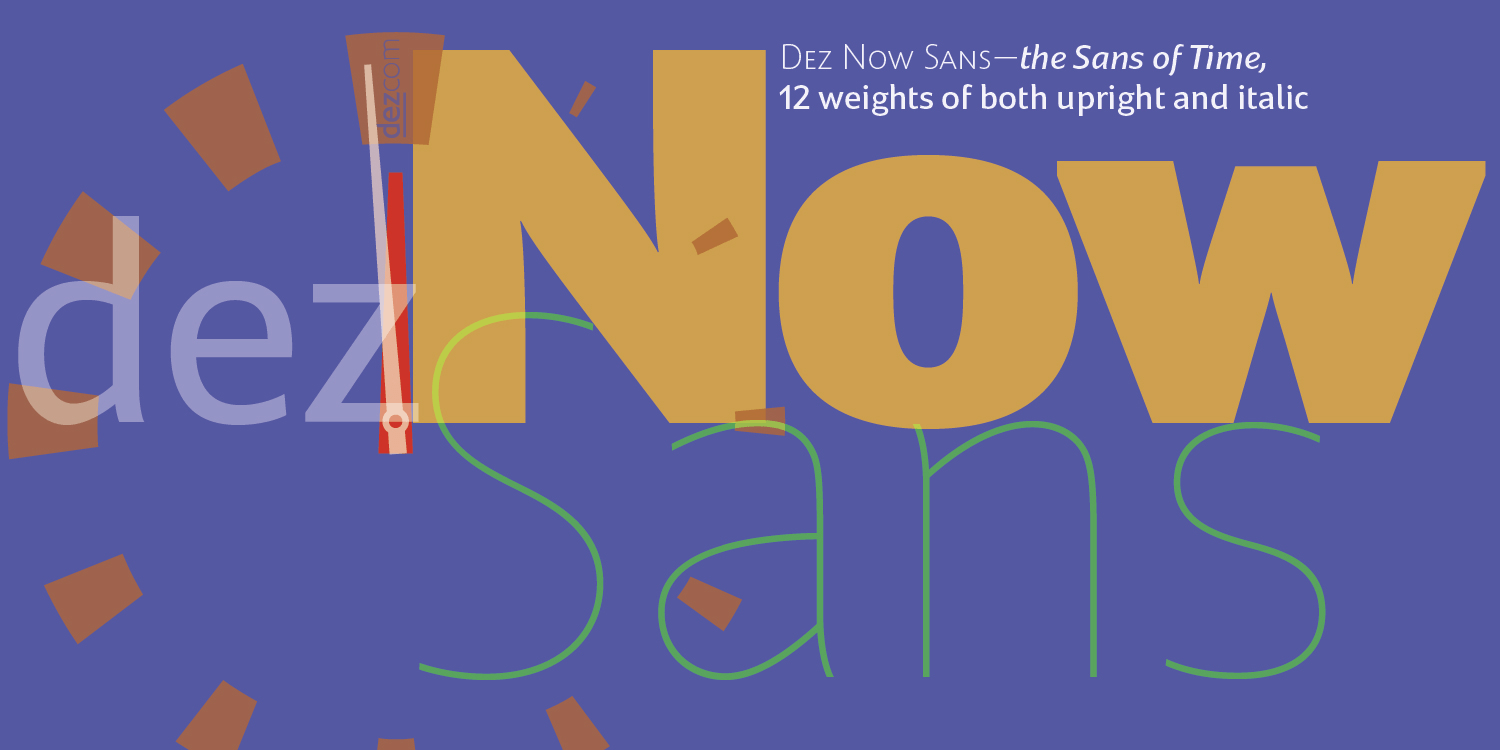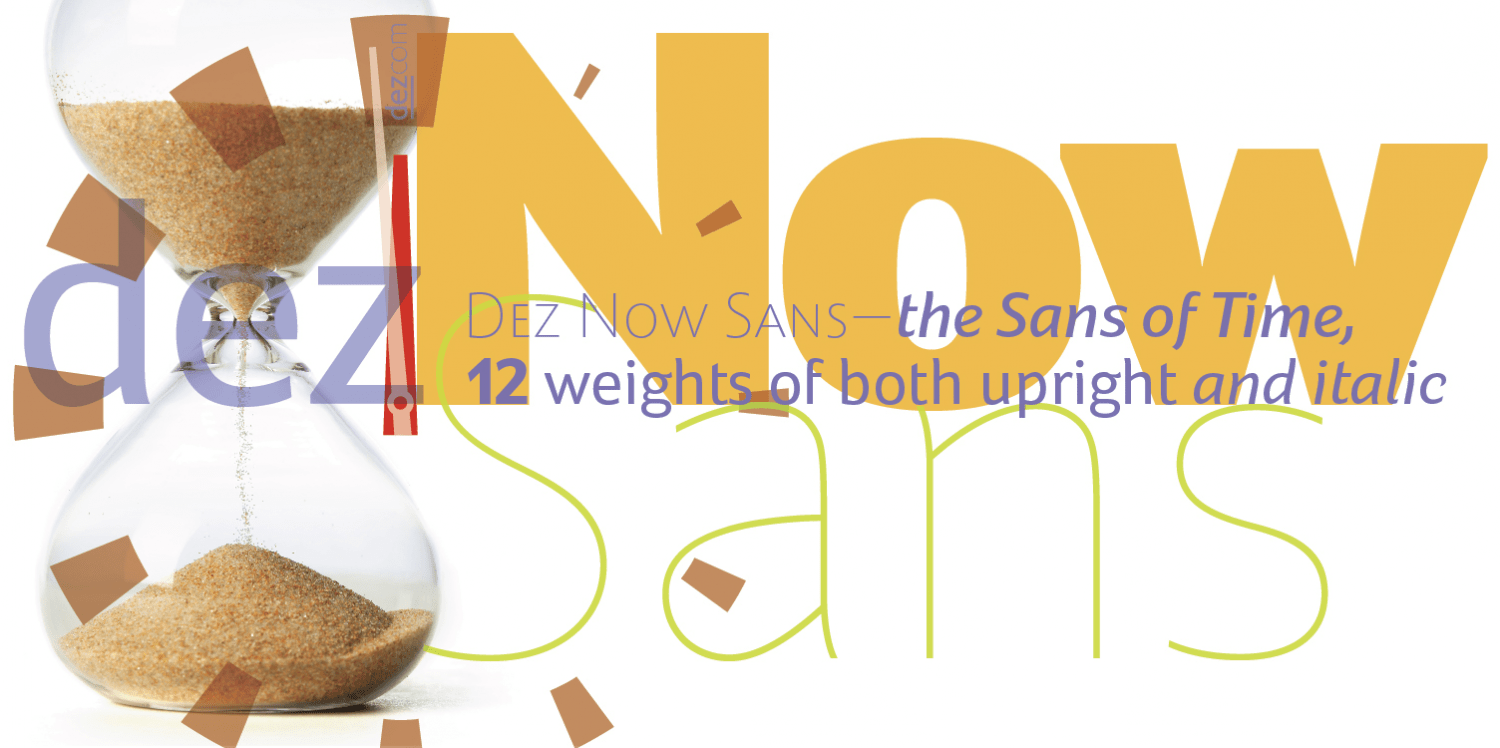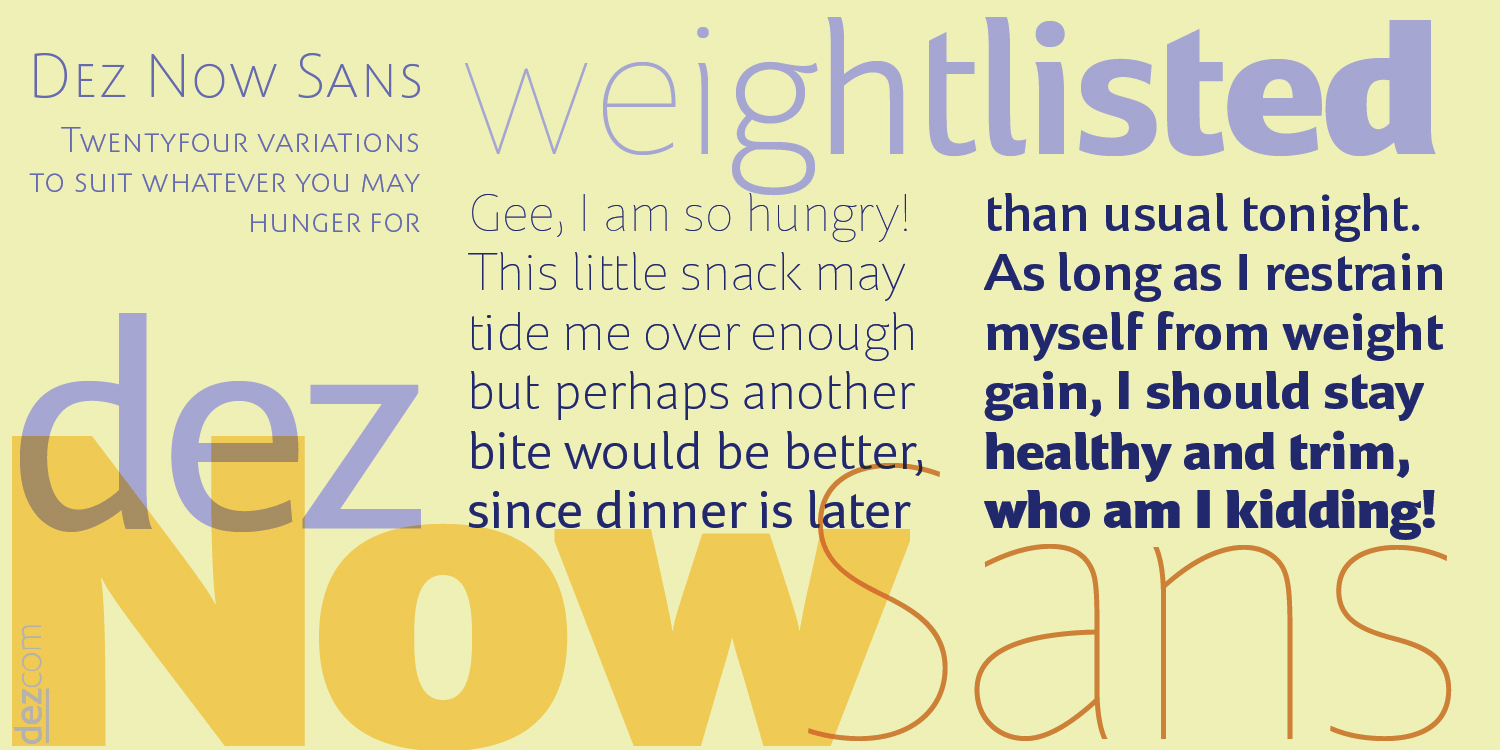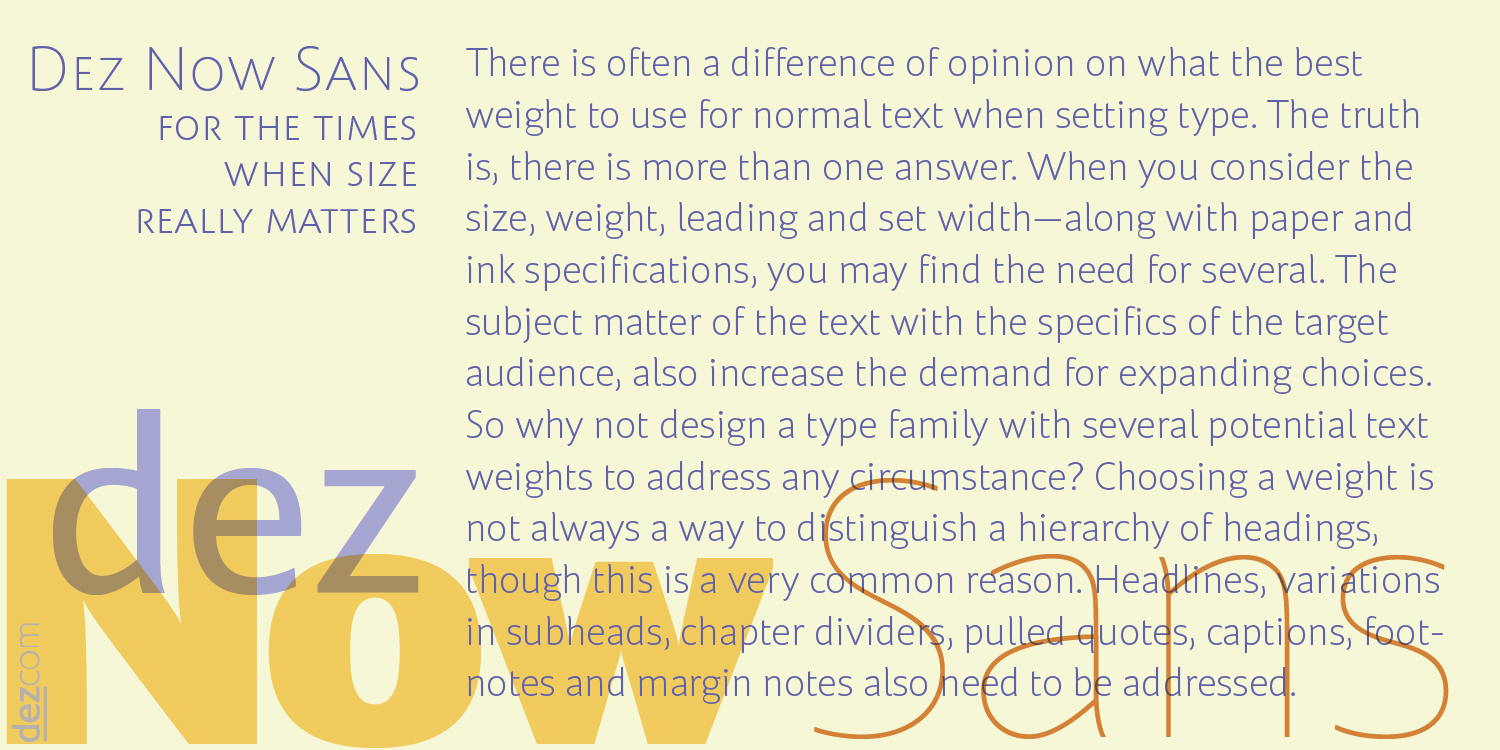
Dez Now Sans
Font Family by Dezcom
Dez Now Sans is a humanistic typeface family that was begun in 2005 by Chris Lozos of Dezcom. Since then, it has been nurtured, revised, and expanded to include 12 weights in both upright roman and true italics totaling 24 variations. This allows the user to choose the weights which best work for type-size, output device, and reproduction process.
There is often a difference of opinion on what the best weight to use for normal text when setting type. The truth is, there is more than one answer. When you consider the size, weight, leading and set width?along with paper and ink specifications, you may find the need for several. The subject matter of the text with the specifics of the target audience, also increase the demand for expanding choices. Dez Now Sans was designed with several potential text weights to address any circumstance.